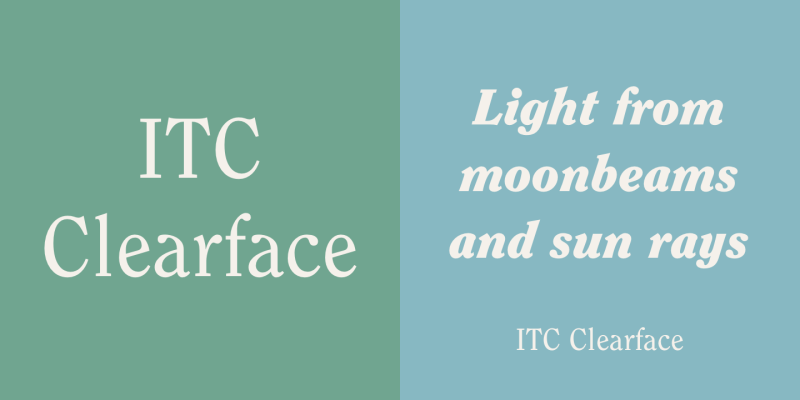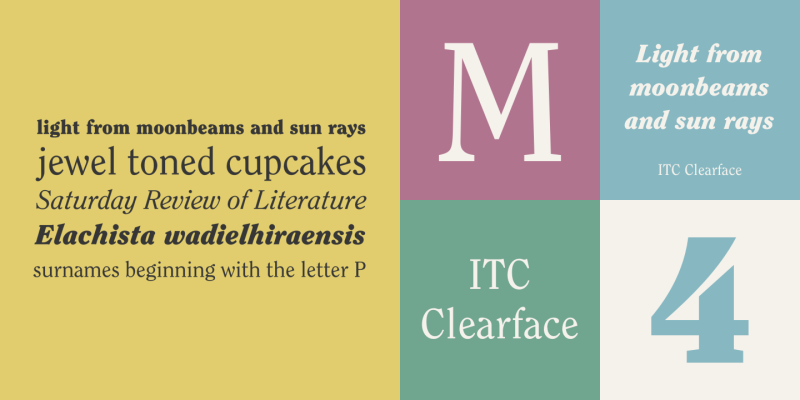
ITC Clearface Font
ITC Clearface is a serif font with a highly professional legacy. Morris Fuller Benton created it in 1907 because the American Type Founders wanted the industry to become more innovative and modern. By combining classics and modernism in its design, this font will suit various projects.
ITC Clearface’s main feature lies in its consistent design, which accurately measures capitals and minuscules. These designers were diligent enough to devise a unique font that combines the best features of contemporary and vintage styles.
Besides, it supports small size and medium resolution. The typeface, which was explicitly designed to be legible and attractive by using a polite, serif font and inter-letter spacing, makes it suitable for various tasks.
Ascetics such as kerning and letter spacing in ITC Clearface make this font easy to read. Regarding the readability of characters and the introduction of visual aesthetics, the designers were able to do this by maintaining true kerning (the spaces between characters) to make text readable and balancing visuals and rhythm.
The ITC Clearface is the main font, and the fact that it is unique through its attributes and level of detail is its standout feature. The one-of-a-kind feature here is the uniformity between the x-height and the rounded serifs. It results in a harmony that makes it a comfortable and relaxed place. The italics of ITC Clearface with the appealing crooked crossbars and the lively slant impart a spirit of creativity and expression to the text.
ITC Clearface is adaptable and equally applicable to other options besides DIY products. It determines the branding, advertising, copy editing and content production. It gives a brand an awesome look that is unique from others. Hence, it suits such projects very well, as the organizers try to depict the traditional atmosphere along with the newest trends.
In print it is font, size and line spacing that make it look readable and balanced. Designers should be careful about typeface selection; ITC Clearface is good enough to show elegance without losing seriousness.
It is worth noting that the clearness of ITC Clearface makes it perfect for all websites, e-books and online publications like this one. Textiles not only contribute to aesthetics and legibility but also provide a designer with additional tools for design.
Where ITC Clearface Font works best
ITC Clearface Font gives long-form text a classic, trustworthy rhythm — ideal for magazine spreads, annual reports and book interiors.
Pair ITC Clearface Font with generous letter-spacing for wordmarks in fashion, hospitality, wine and jewellery branding.
Use ITC Clearface Font for slide titles in Keynote, PowerPoint or Google Slides to add authority without looking dated.
What is ITC Clearface Font good for?